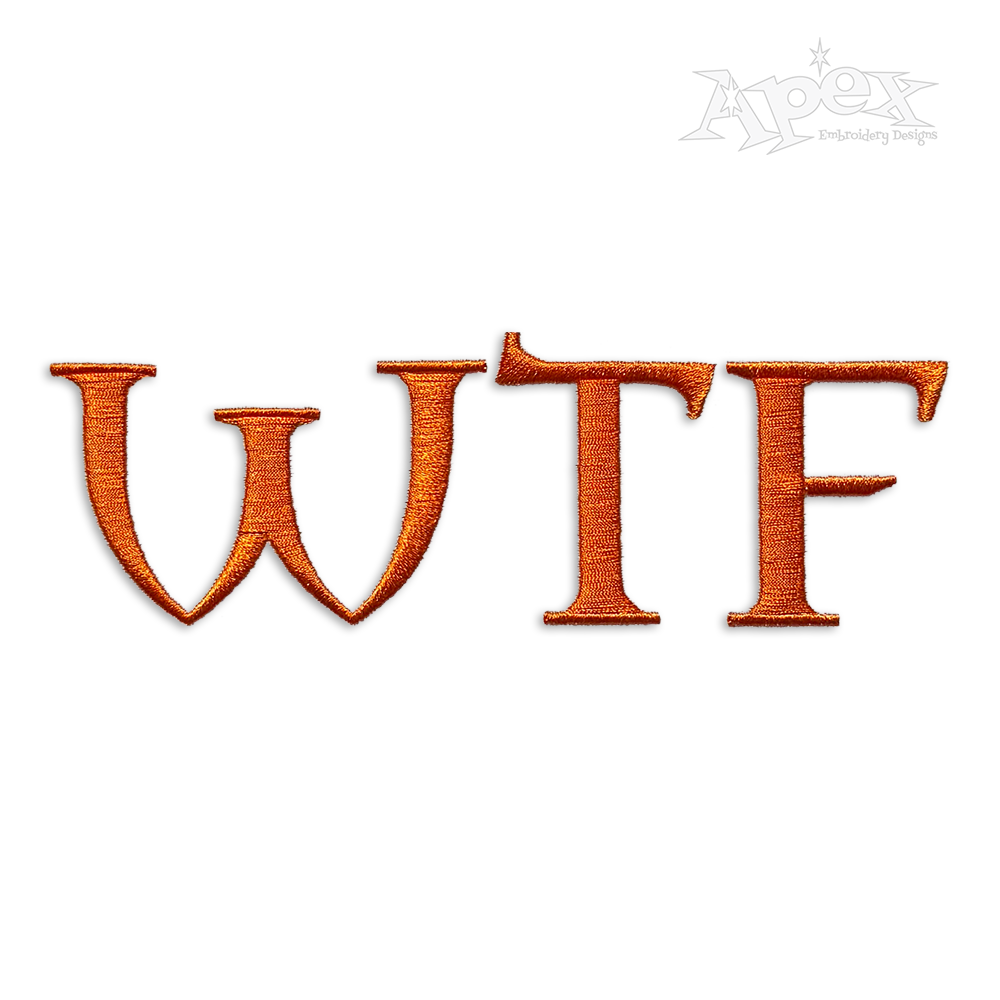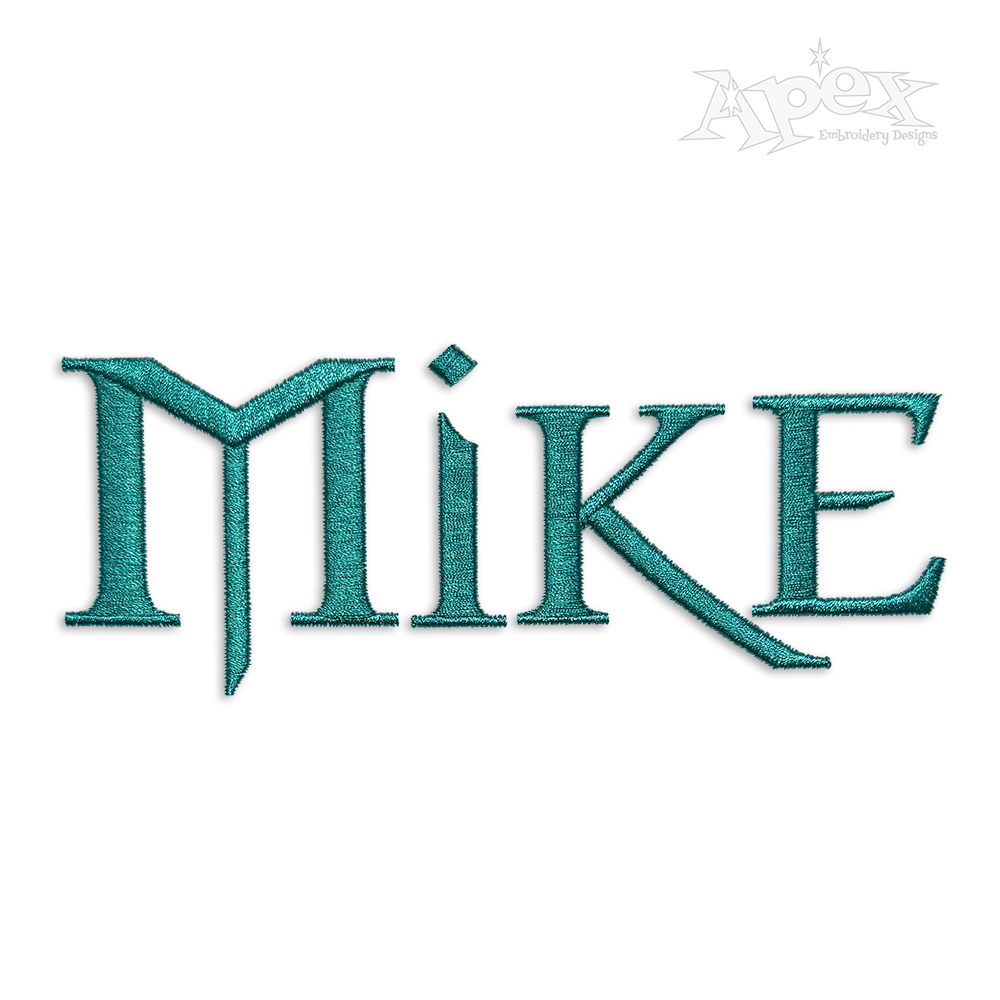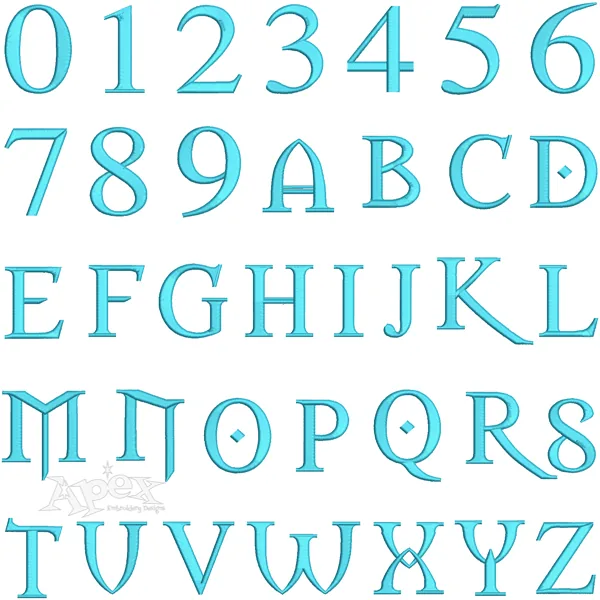
Morpheus Embroidery Font
Stepping into the studio to digitize Morpheus was like translating ancient, mythical calligraphy into the tactile, dimensional realm of needle and thread. Inspired by storybook lore and romantic medieval letterforms, this distinctive alphabet commands the eye with its sweeping, bowed stems, flared terminals, and enchanting, dreamlike presence. Every single glyph was sculpted from an artisan perspective to balance dramatic fantasy aesthetics with pristine satin stitch execution, turning everyday fabrics into pages lifted straight from an illuminated legend.
Project Ideas for Morpheus
The evocative, medieval-leaning charm of Morpheus brings an artistic mood to a wide spectrum of creative and personalized gifting projects:
- Dark Academia & Library Heirlooms: Embroider names or initials onto heavy linen book sleeves, velvet bookmark ribbons, reading pillows, and cozy fireside throws.
- Ethereal Bridal & Fantasy Weddings: Personalize romantic velvet ring pouches, dramatic cape veils, bridal robe cuffs, or silk ribbon ties for bouquet wraps with an otherworldly flourish.
- Themed Table Linens & Luxury Entertaining: Accent heavy slate, emerald, or midnight-blue table runners, formal dinner napkins, and custom cocktail coasters for unforgettable dinner parties.
- Bespoke Statement Outerwear: Stitch dramatic left-chest crests on wool trench coats, Renaissance-inspired vests, smoking jackets, or rugged canvas expedition totes.
Because Morpheus features bold movement and organic curves, strategic placement enhances both readability and aesthetic impact:
- Center Chest & Back Yoke: The generous 3-inch size serves as a stunning anchor when placed across the upper back of a structured jacket or centered on an artful bodice or tunic.
- Diagonal Napkin Corners: Stitch a single 2-inch or 3-inch initial on a 45-degree angle approximately two inches from the bottom hemline of mitered-corner table linens for an opulent presentation.
- Cuff & Sleeve Placements: The 2-inch characters align beautifully along sleeve cuffs or stacked vertically down an open placket, delivering an unmistakable bespoke signature.
- Pillow & Tapestry Centers: Align a bold monogram directly in the optical center of an accent cushion to command the focus of your living room or study.
Morpheus Craft & Letterform Details
What sets Morpheus apart under the needle is the intentional engineering behind its sweeping, unconventional curves. The font is defined by exaggerated flared serifs, lyrical ascenders, and asymmetrical crossbars—traits that would easily warp or bunch if processed through automated tools. In our manual digitizing workflow, stitch angles are carefully fanned around each curve to follow the natural path of a calligrapher’s quill, maximizing thread sheen and light reflection.
To support the flared terminals without stiffening the fabric, dynamic underlay foundation grids were constructed beneath every stroke. This deliberate underlay cushions the dense, lustrous satin stitch columns and counteracts fabric pull, ensuring that needle penetrations remain crisp, lines stay true, and the finished embroidery rises from the surface with rich, sculptural dimension.